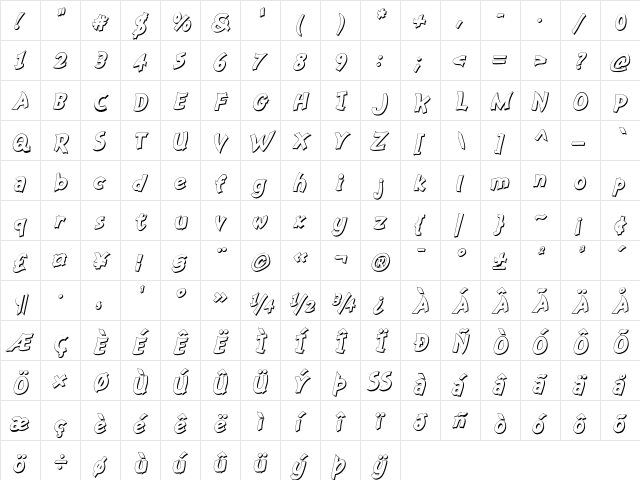
Nanumunga Shadow Bold Oblique Font Preview
| Style | Shadow Bold Oblique |
| Foundry | Jeremy Dooley |
Design Context for Nanumunga Shadow Bold Oblique Typeface
Nanumunga Shadow Bold Oblique is built around its visual character rather than neutral utility — its distinctive forms are designed to make an impression at display sizes. The dynamic lean of this cut emphasises speed and emphasis in any layout. Its bold stroke weight gives it real presence on the page.
Font Pairing: Pair with a clean neutral sans-serif for body copy to let Nanumunga Shadow Bold Oblique's character lead without overwhelming the composition.
Pro Tip: Treat Nanumunga Shadow Bold Oblique as the centrepiece of your typographic hierarchy. One strong heading set in a decorative face can carry an entire layout.